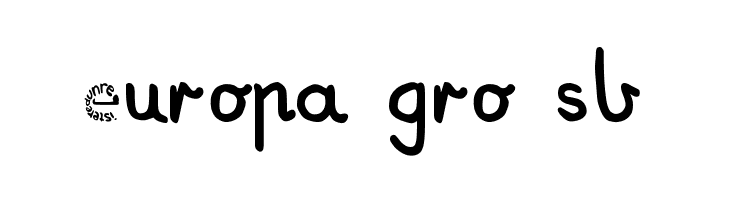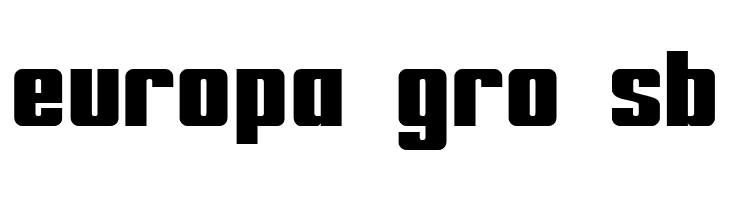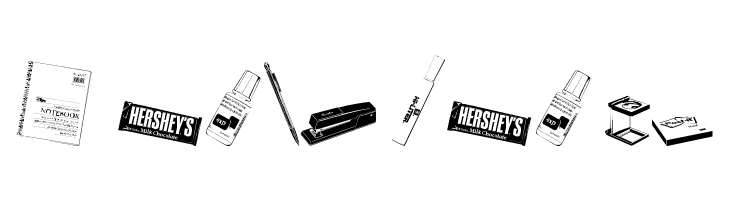
A dynamic serif font with calligraphic influences and sharp serifs.
A bold, distressed font with jagged, ink-splattered strokes for a grungy, rebellious look.
A bold, expressive brushstroke font with a hand-drawn, artistic feel.
A playful, casual script font with flowing, cursive letterforms.
Ornate Arabic calligraphic style with dense, decorative detailing.
A bold, geometric font with dynamic curves and angles, offering a modern yet retro aesthetic.
A playful, handwritten-style font with a casual and informal appearance.
A bold, expressive script font with fluid, brush-like strokes.
Illustrative display font made from office supply drawings.
A bold, playful font with a vintage flair and rounded characters.
A bold, blocky font with a strong, impactful presence.
A distressed, grungy font with a scratched, eroded appearance.
A playful, rounded handwritten font with a friendly and whimsical style.
A playful, casual handwritten font with uneven strokes and an organic flow.
A playful, hand-drawn font with a bold and quirky style.
A playful, hand-drawn font with a bold, distressed style.